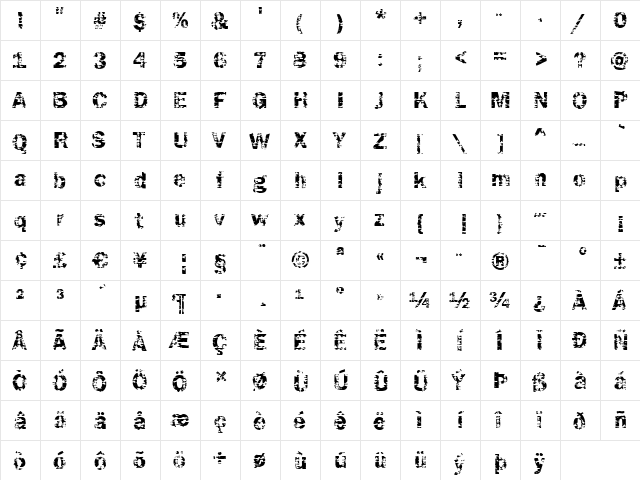
Funky04 Bold
Design Context for Funky04 Typeface
Funky04 trades formality for fun, with bouncy, characterful letterforms that bring warmth and energy to any project.
Font Pairing: Pairs well with a rounded or humanist sans for body copy, maintaining the friendly tone without relying on Funky04 to carry extended reading.
Pro Tip: Use Funky04 at larger display sizes where its expressive character can land. Pair with a clean, simple sans for body copy to maintain readability.